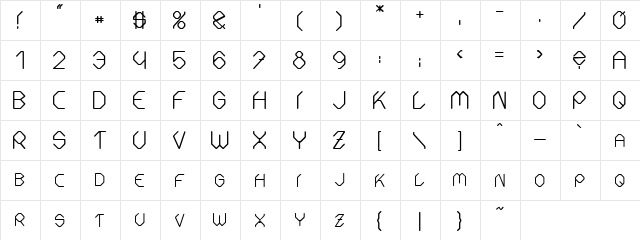
Fontmaker Slash Regular
Design Context for Fontmaker Slash Typeface
Fontmaker Slash is a composed and adaptable typeface that performs quietly and consistently across a wide range of design contexts.
Pro Tip: Use Fontmaker Slash in both headline and body roles to test its range before committing to a single application.